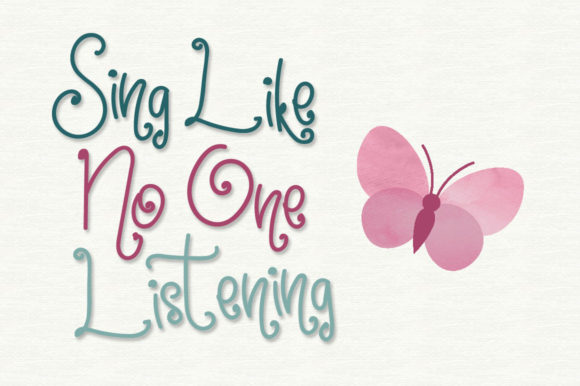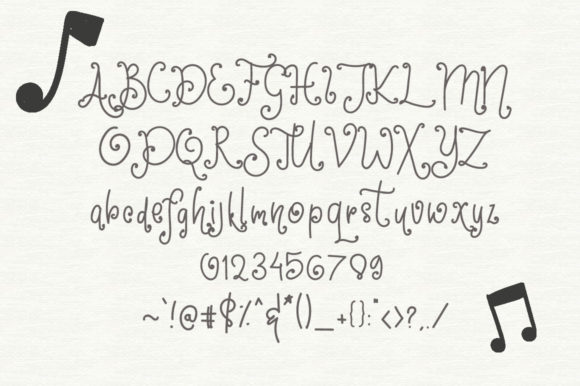
Saxophone Font
About Saxophone Font
The Saxophone is a handwritten musical font. It has an unique, bouncy and lovely style, and will give something quirky to your designs! Use this font and let it dance through the words!